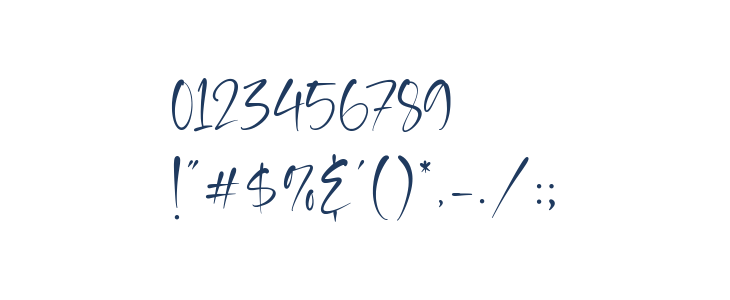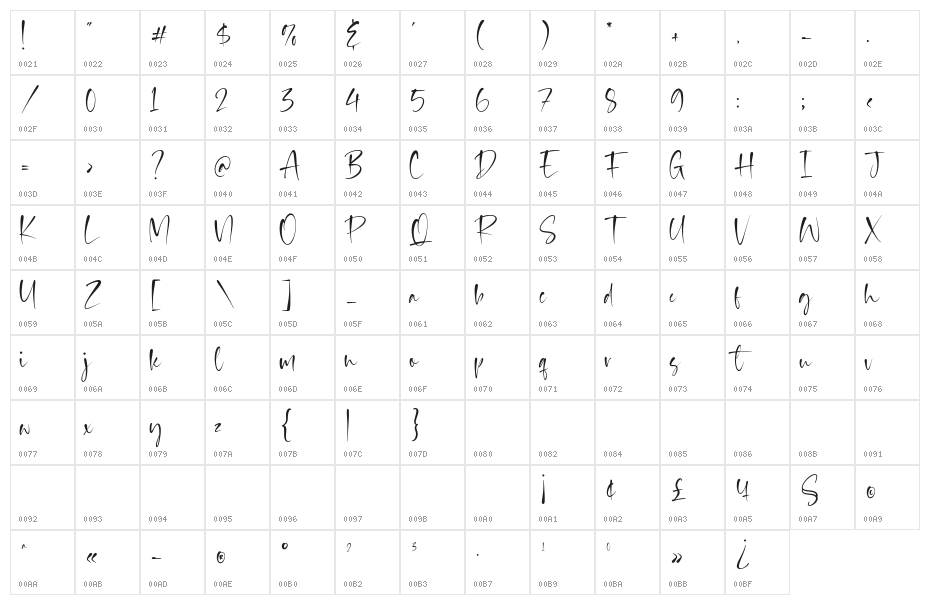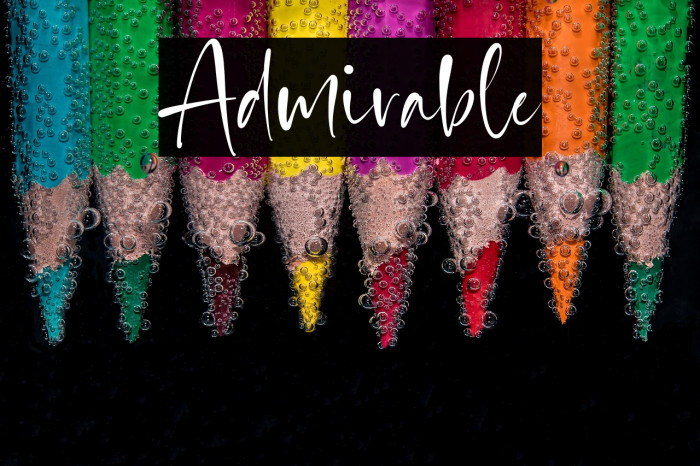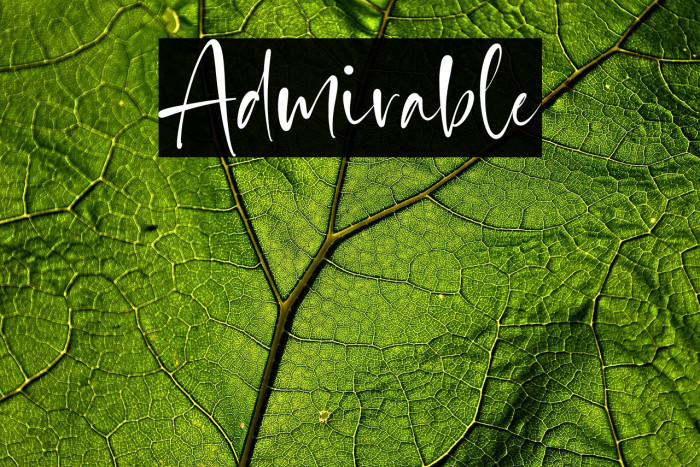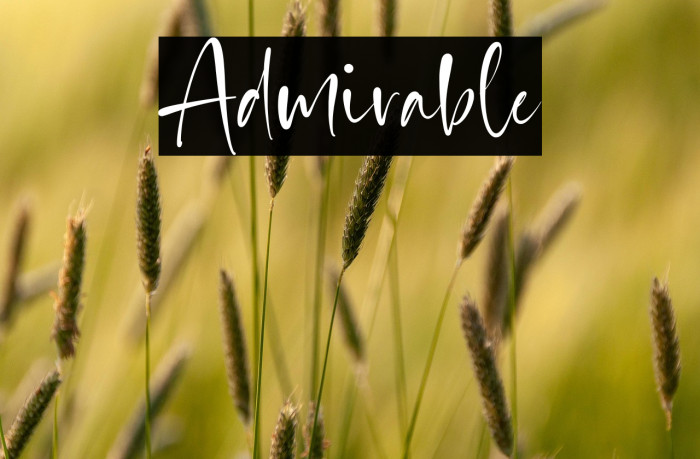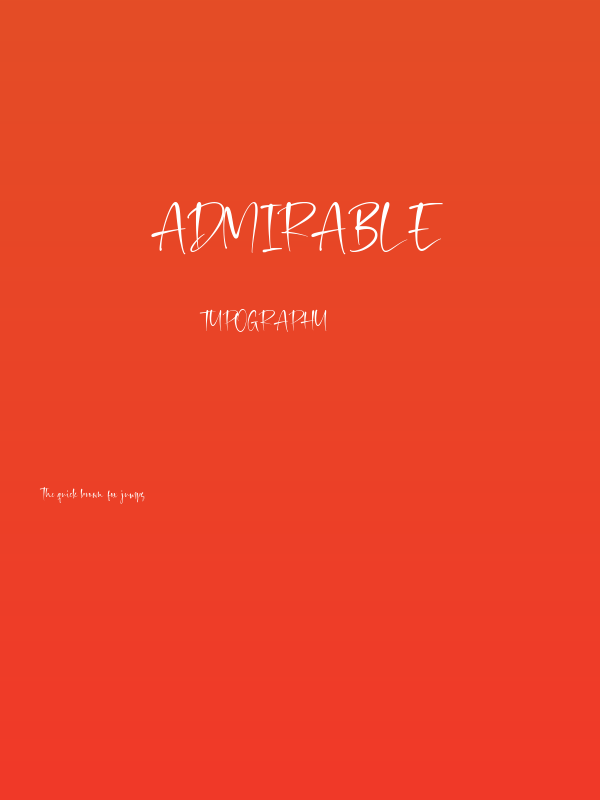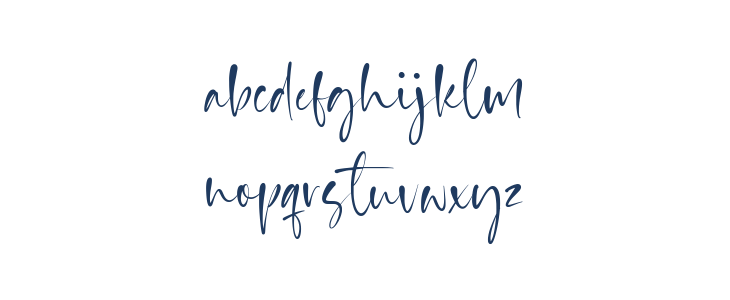
Admirable Font
Admirable Description
This font exudes a lively and expressive handwritten style, characterized by its fluid and dynamic strokes. The uppercase letters are tall and slightly narrow, with a playful tilt that adds a sense of movement. The lowercase letters maintain a consistent flow, with some characters featuring loops and curls that enhance its whimsical nature. The numerals are bold and clear, ensuring readability while retaining the font's artistic flair. Special characters are thoughtfully designed to match the overall aesthetic, making this font versatile for creative projects.
| Use Case | Logos, Headlines, Creative projects |
| Proposed Projects | Ideal for greeting cards, invitations, personal branding, and creative social media graphics. |